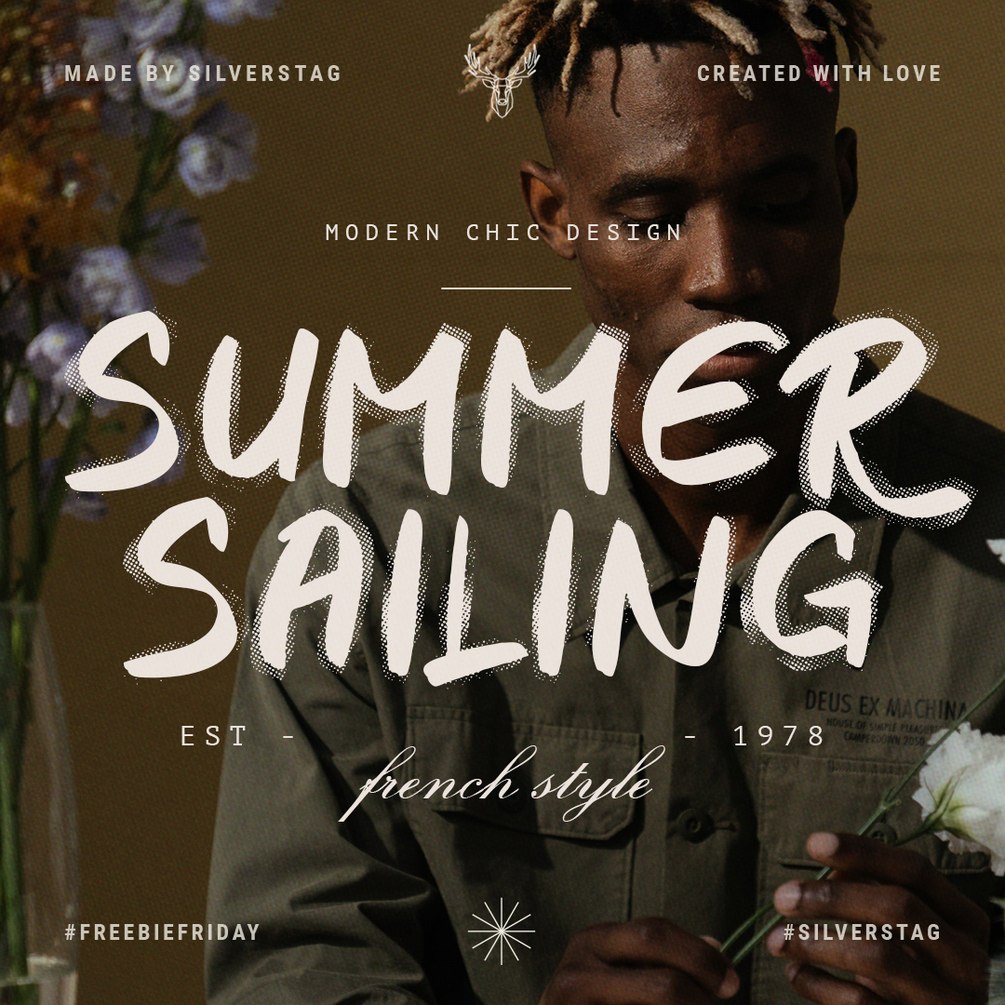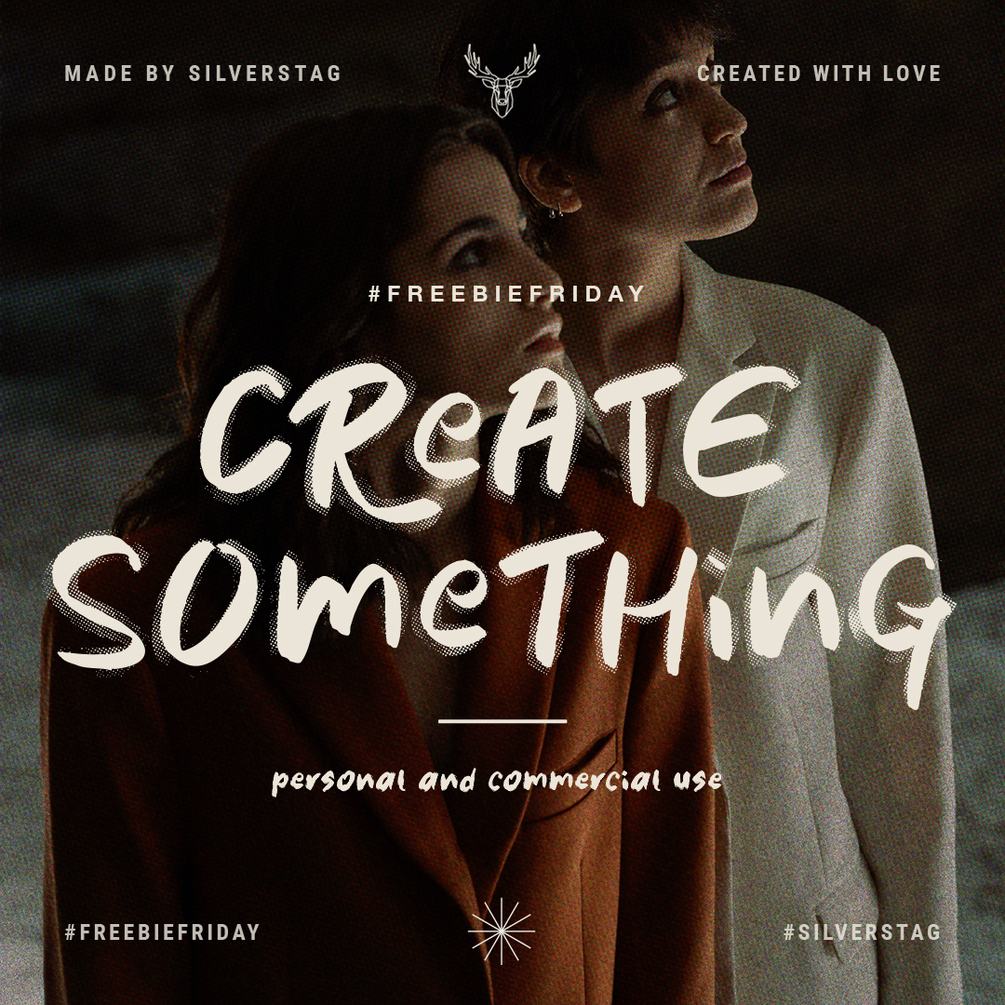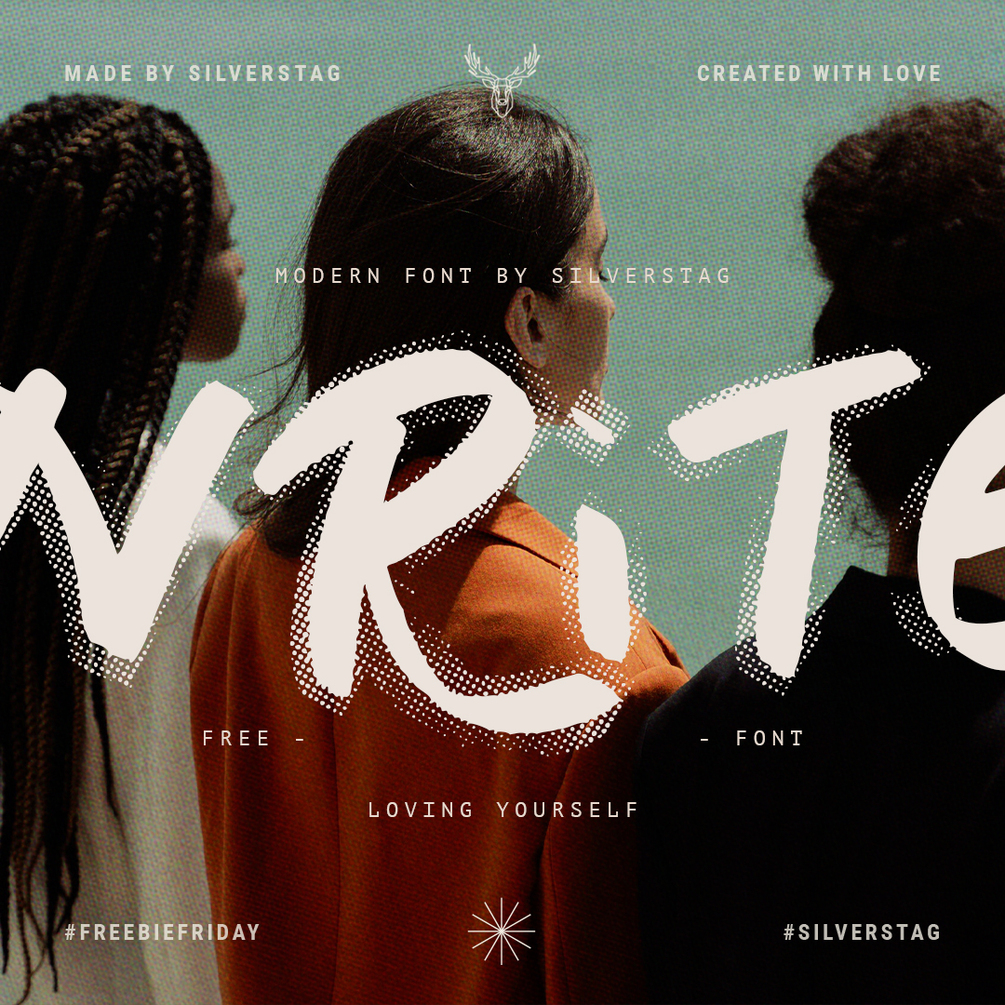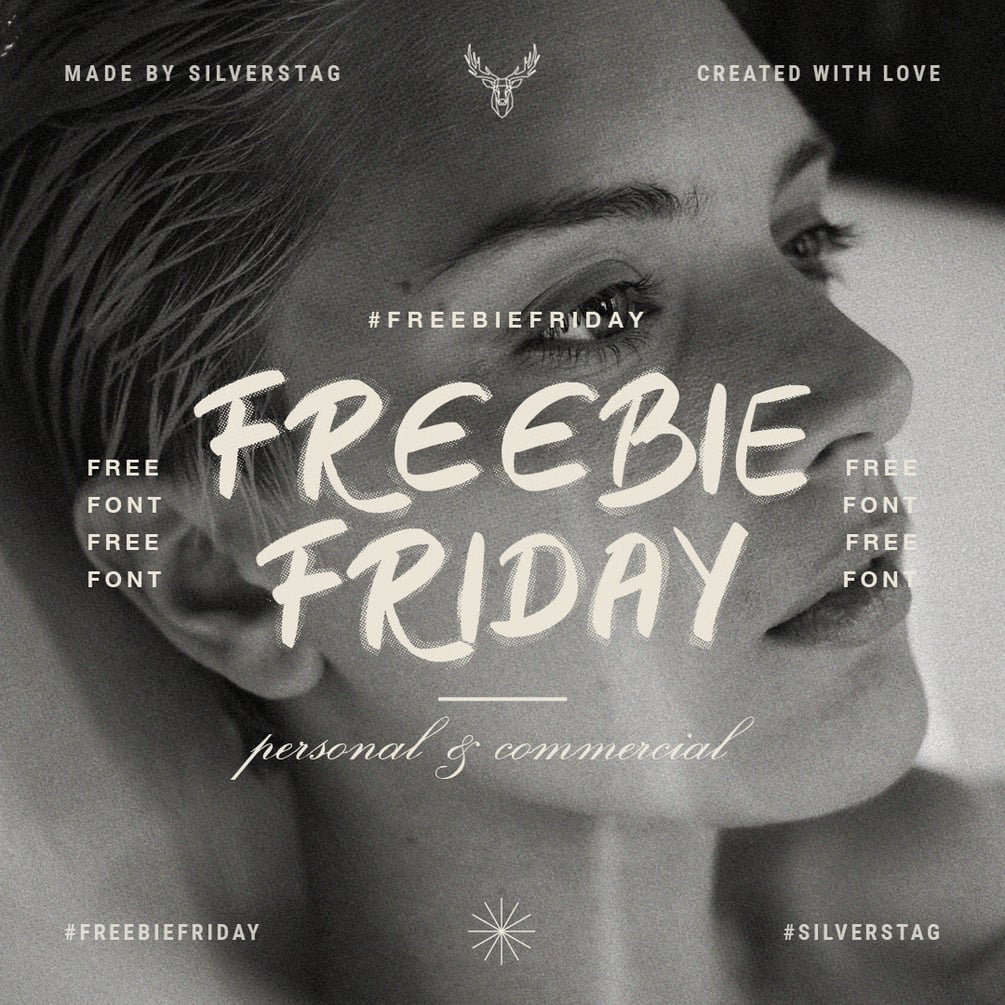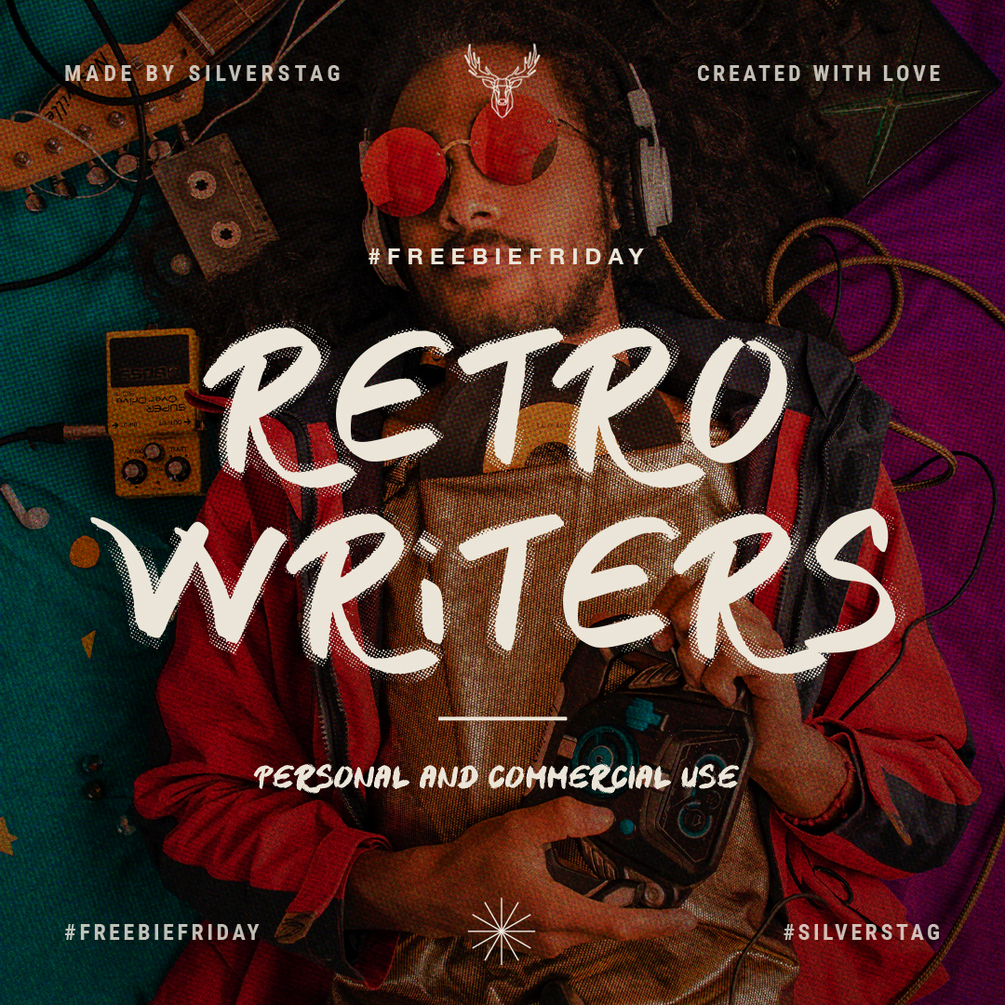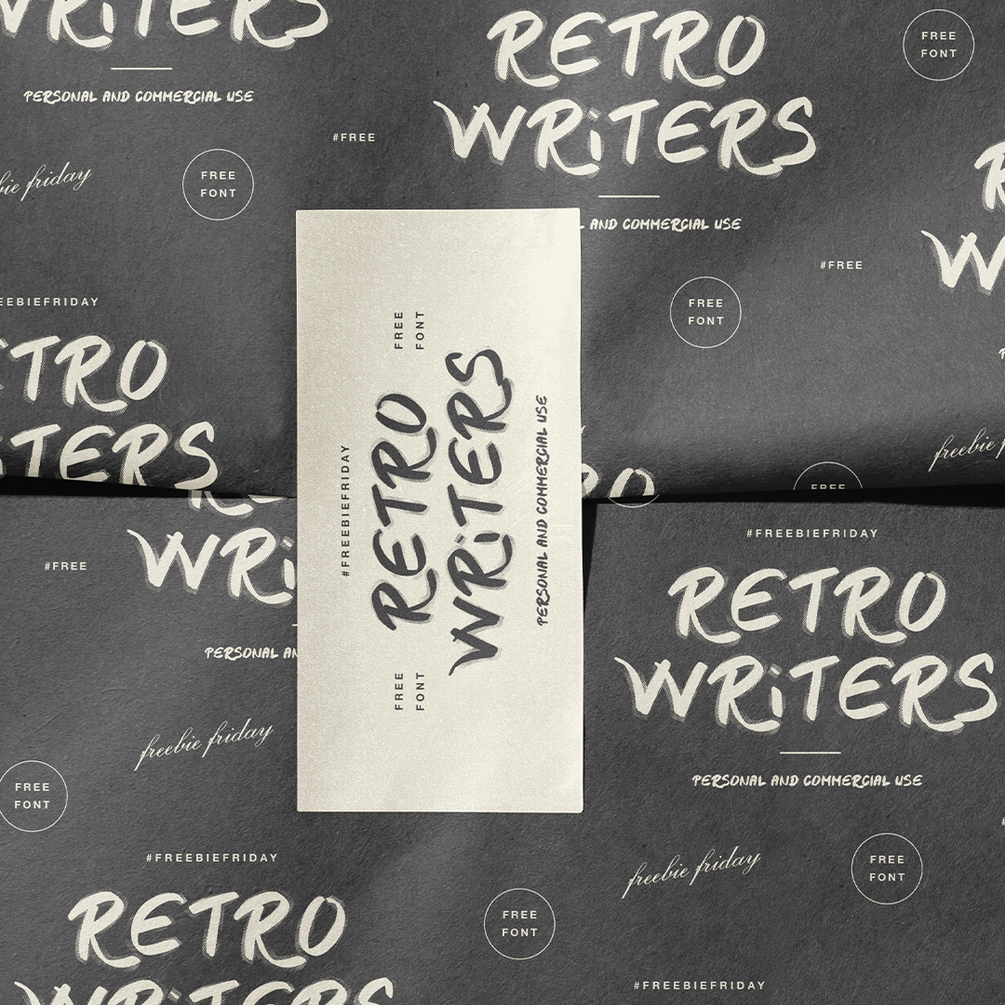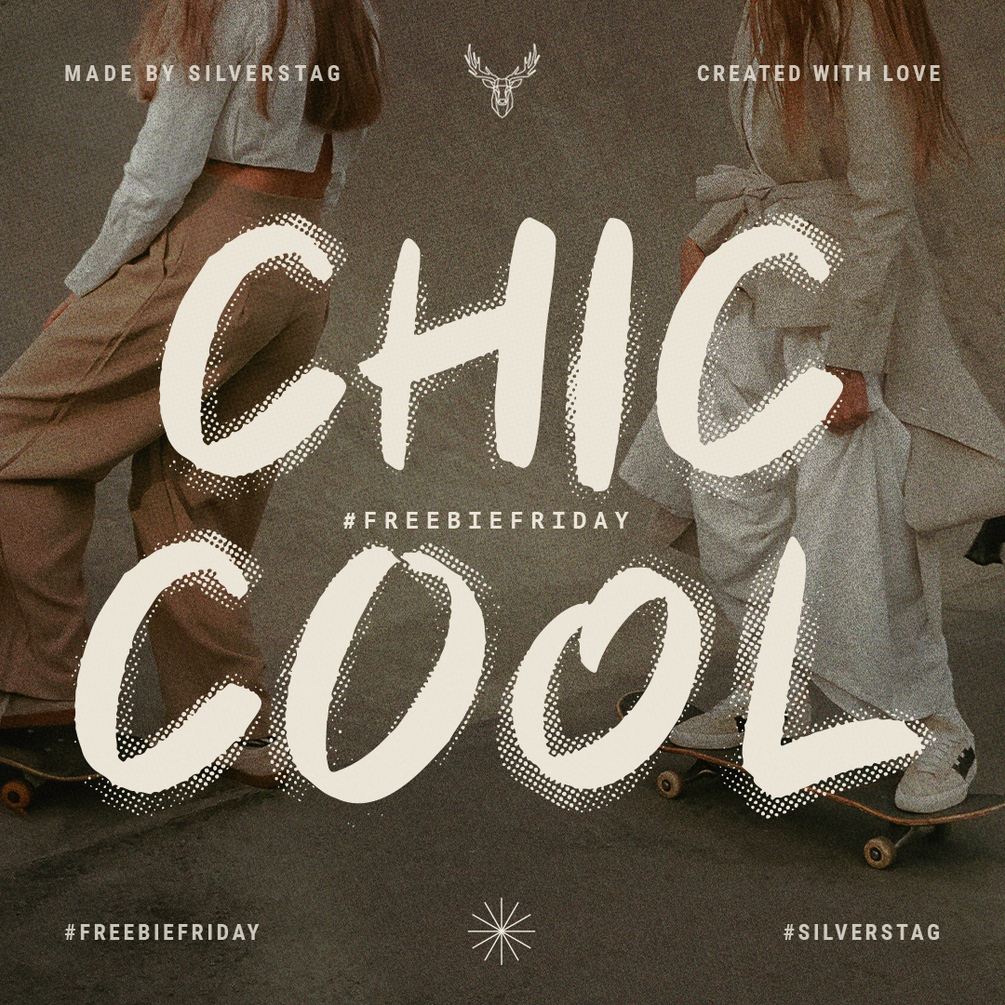
RETRO WRITERS - Free Grunge Display Font
Another Friday, another freebie! This week I am happy to give you a quirky grunge display font - Retro Writers. With full uppercase and lowercase letters set and uppercase alternates set you can use it to make logos, quotes, social media posts,... well, whatever you set up yourself up to! The true handwritten look will elevate your work and help you create some new and unique designs.